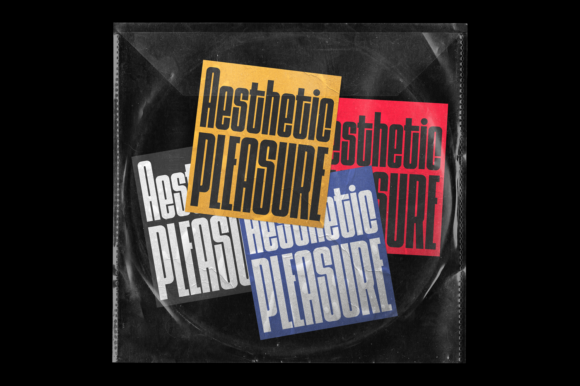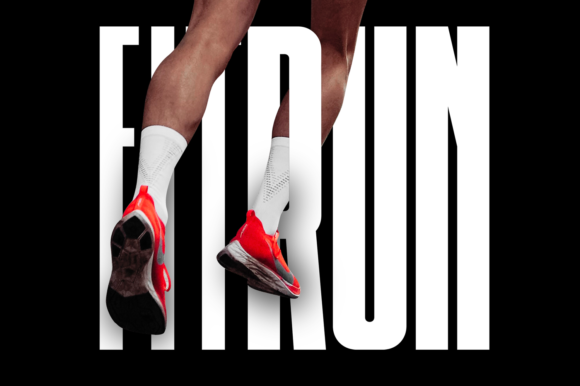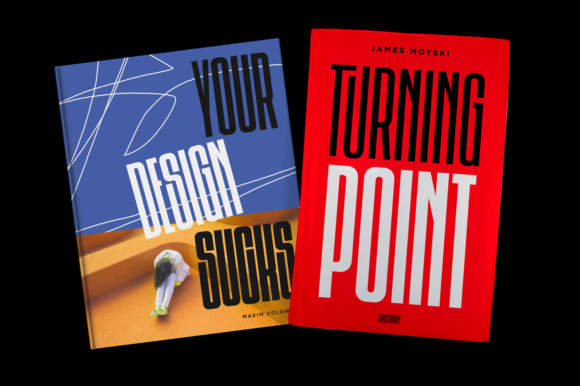
Urbanshock Font
Urbanshock is a tall, thin and cool sans serif font. It will elevate a wide range of crafting ideas, from cards, to branding, labels and much more.
Add it confidently to your favorite creations and let yourself be amazed by the outcome generated.